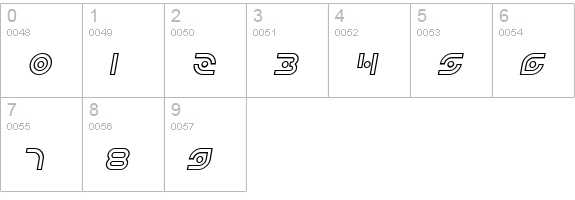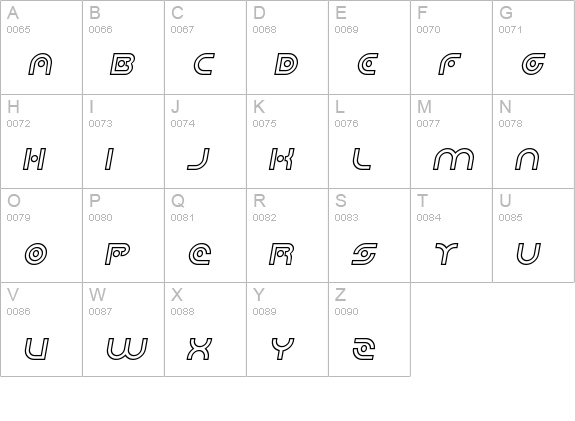
Planetary Orbiter Outline Bold Italic is a strong, high-contrast, italic variant in the Planetary typeface family \xE2\x80\x94 well suited to headlines, attention-grabbing titles, and strong calls-to-action.
Introducing the magnificent Planetary Orbiter Outline Bold Italic font, a mesmerizing typeface that combines elegance with a touch of otherworldly charm. This font is the perfect choice for those seeking a unique and eye-catching design element that will captivate and inspire. Crafted with meticulous attention to detail, the Planetary Orbiter Outline Bold Italic font boasts a stunningly intricate outline, giving each character a sense of depth and dimension. Its bold and italic styling adds a dynamic and striking appeal to any project, making it ideal for titles, headlines, and attention-grabbing statements. This font is a true testament to the power of innovation and creativity, as it effortlessly merges futuristic elements with a classic typographic aesthetic. Its sleek and modern appearance speaks volumes about its versatility, making it suitable for a wide range of design applications, including branding, advertising, web design, and more. One of the most remarkable aspects of the Planetary Orbiter Outline Bold Italic font is that it is freely available to download at FontsMarket.com. This means that designers and typographers alike can access this extraordinary typeface without any financial barriers. Whether you're a seasoned professional or an aspiring creative, this font offers the opportunity to bring your visions to life with its bold and distinctive character. Embrace the limitless possibilities that the Planetary Orbiter Outline Bold Italic font offers. With its captivating design and freely accessible nature, this font is sure to become a true asset in your creative endeavors. Download it today and watch as your projects soar to new heights of visual excellence.